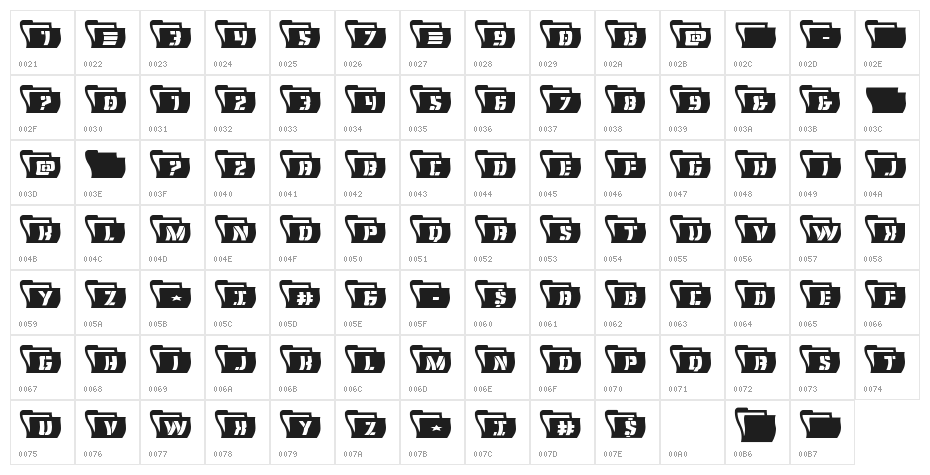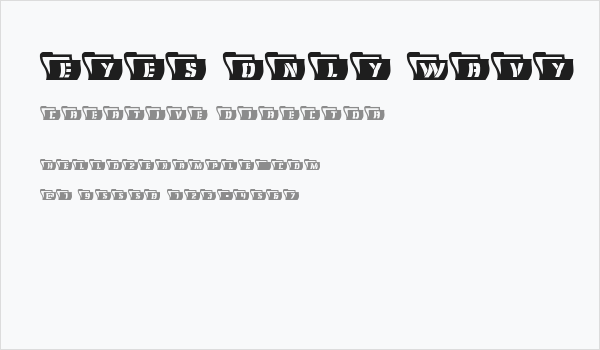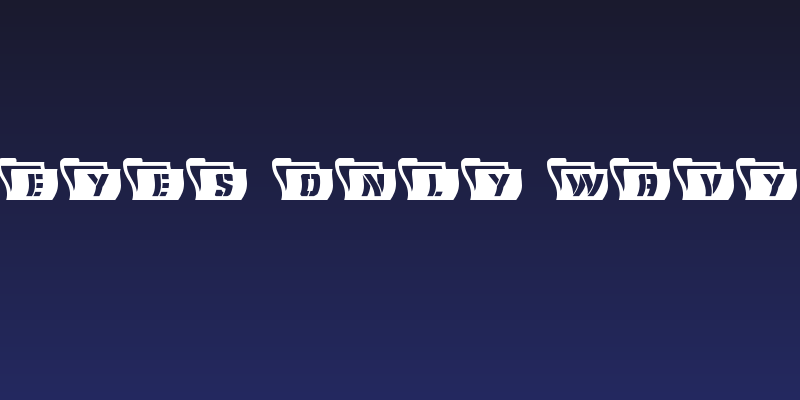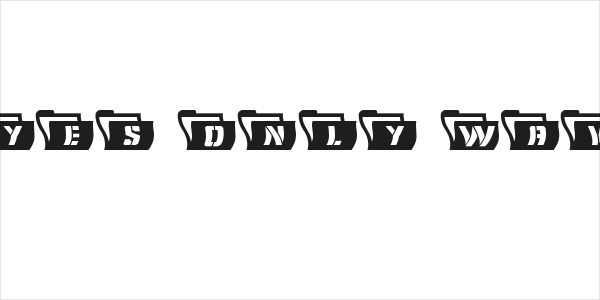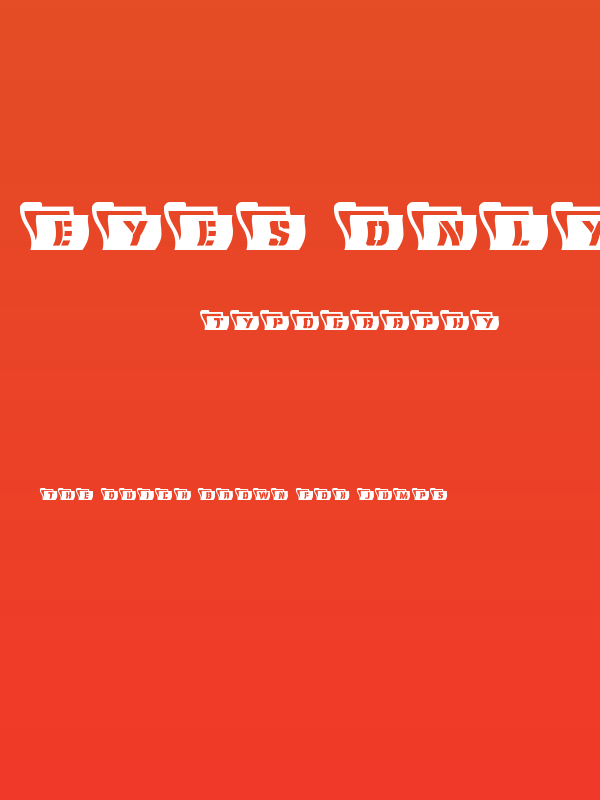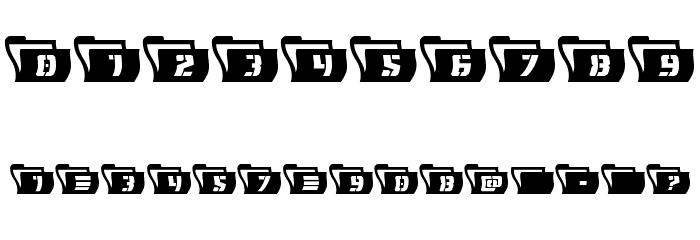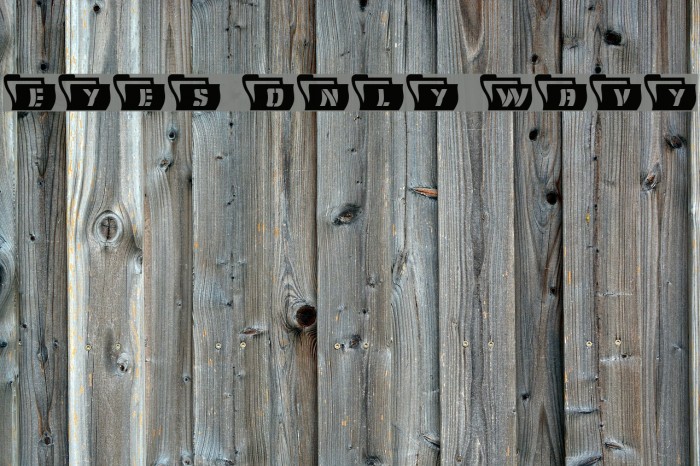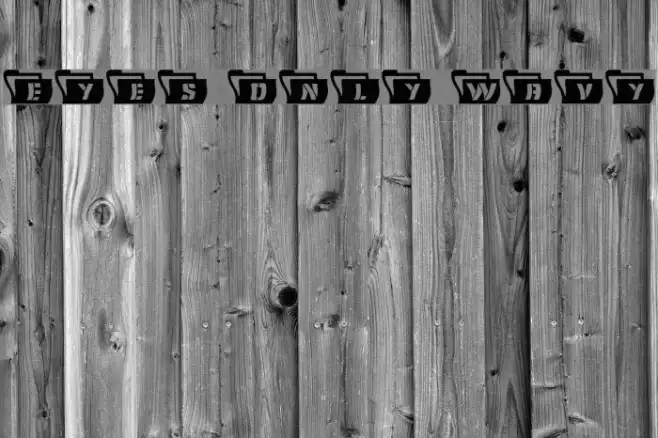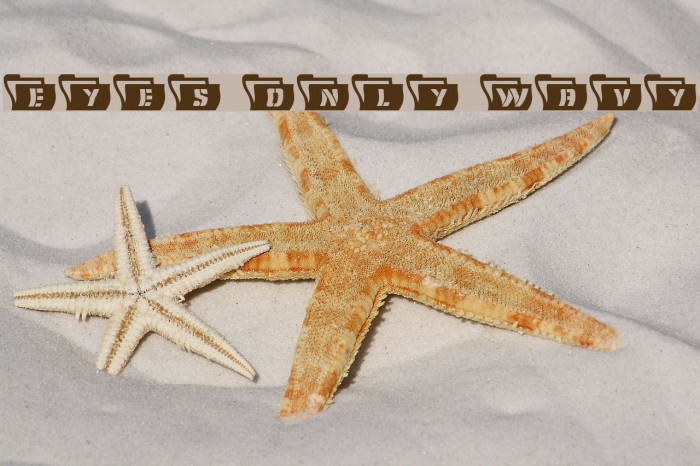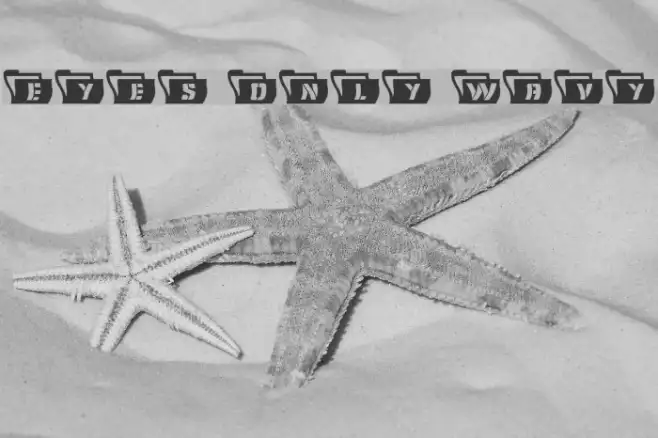
Eyes Only Wavy Font
Eyes Only Wavy Description
This font features a bold and dynamic design with a wavy, ribbon-like appearance. Each character is enclosed in a unique, stylized shape that gives the impression of movement and fluidity. The bold strokes and high contrast between the thick and thin lines create a striking visual impact. The characters are tightly spaced, enhancing the compact and cohesive look. The overall style is decorative and modern, making it suitable for eye-catching designs.
| Overall Style | Modern, Decorative |
| Proposed Projects | Ideal for posters, logos, and branding materials that require a bold and dynamic appearance. |